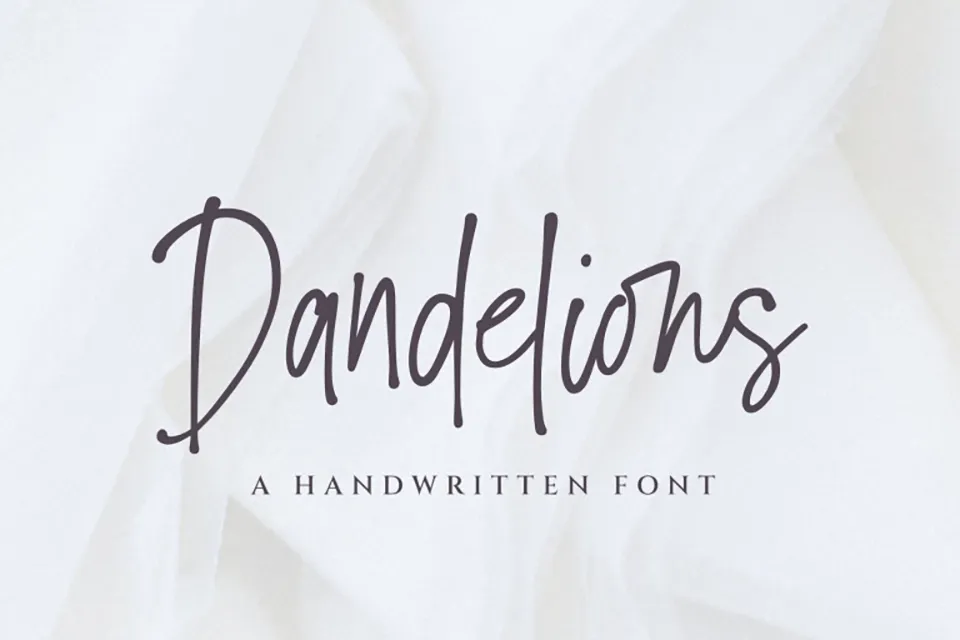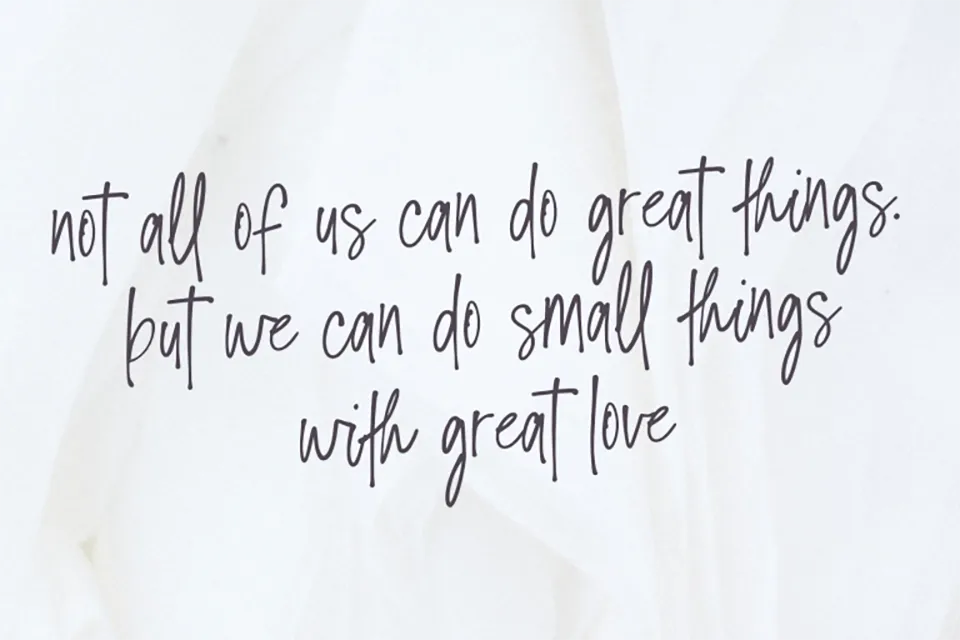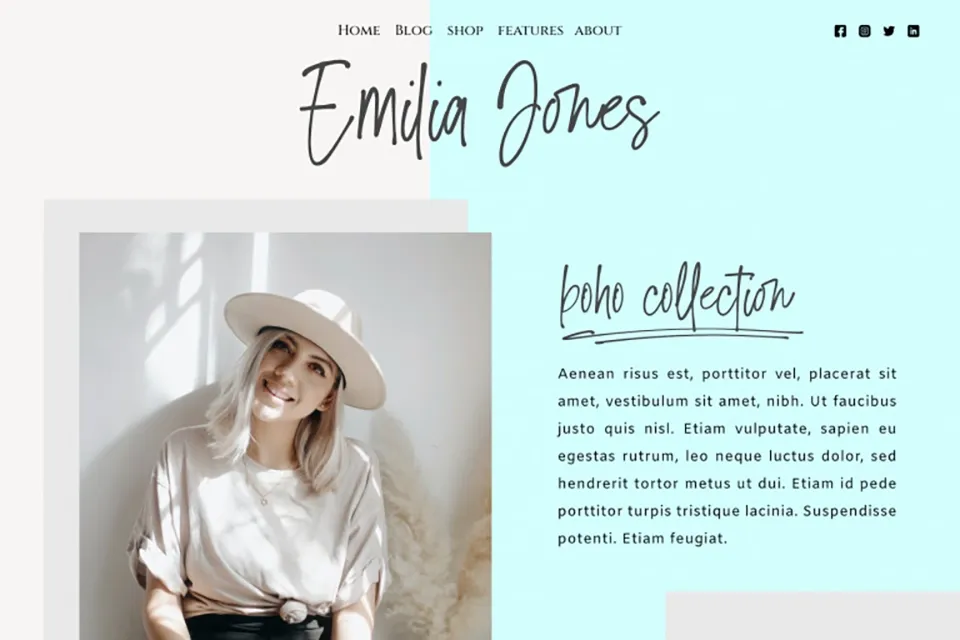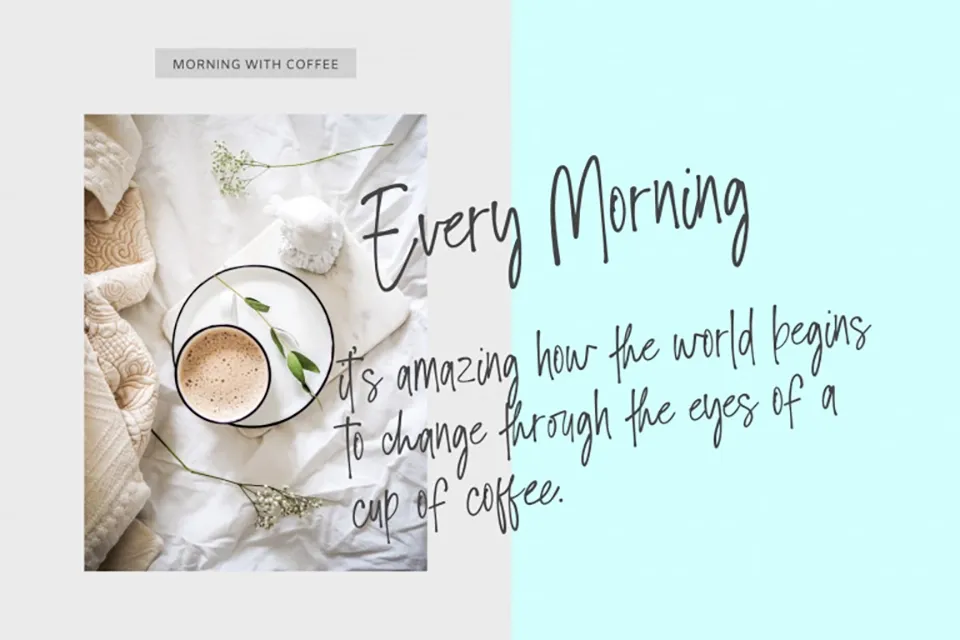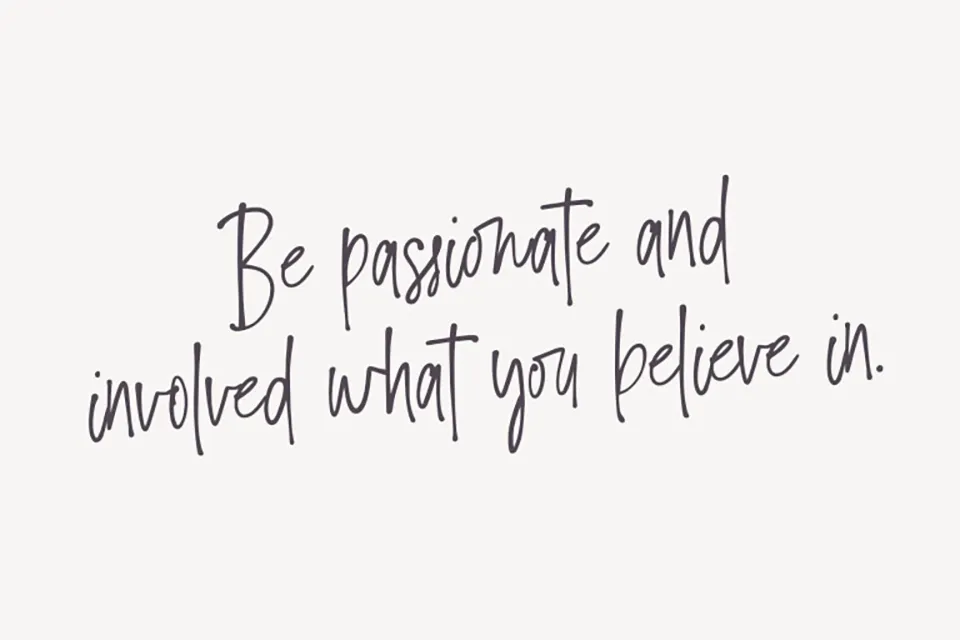
Dandelions Font
Dandelions Font is a handwritten modern script font that brings a cool, stylish touch to branding, blogs, magazines, logos, headlines, wedding invitations, promotions, and more. Featuring a full set of uppercase and lowercase letters, multilingual symbols, numerals, punctuation, swashes, and ligatures, Dandelions Font makes it easy to add expressive, creative flair to your projects. With easy access to swashes and full PUA encoding, this font is both versatile and user-friendly for a wide range of design needs.